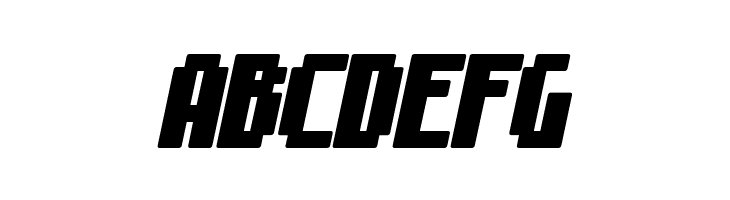
Polentical Neon Bold Italic Font
- Font: Polentical Neon Bold Italic
- Weight: Bold Italic
A futuristic, pixelated font with a digital, geometric style.